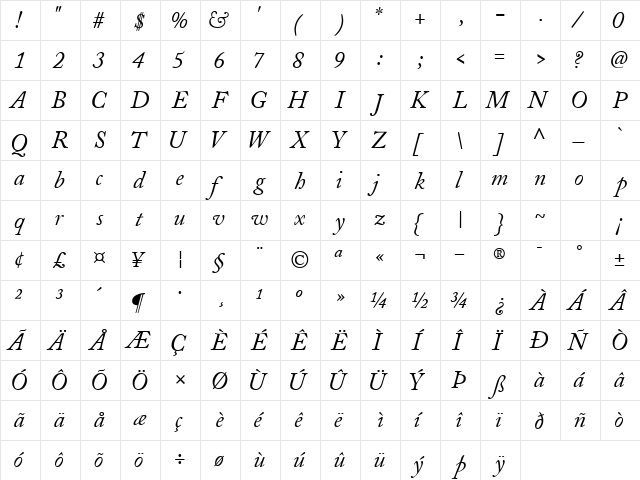
CaslonSSK Italic
Design Context for CaslonSSK Typeface
CaslonSSK offers clean, dependable letterforms without strong stylistic allegiance, making it a practical choice for designers who need flexibility. The dynamic lean of this cut emphasises speed and emphasis in any layout.
Pro Tip: Try CaslonSSK for annotation and caption copy alongside an upright companion — the contrast in angle creates a dynamic but ordered typographic system.